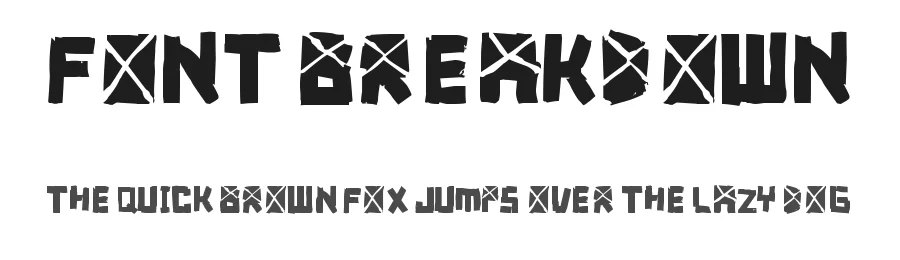
About Correction Tape Font
| Designer | GGBotNet |
Correction Tape Font is a decorative font that shines as a display or heading face. Pair it with a clean sans-serif or serif font for body text β the contrast creates a clear hierarchy while the two styles stay balanced and easy to read.
Correction Tape Font
by GGBotNet